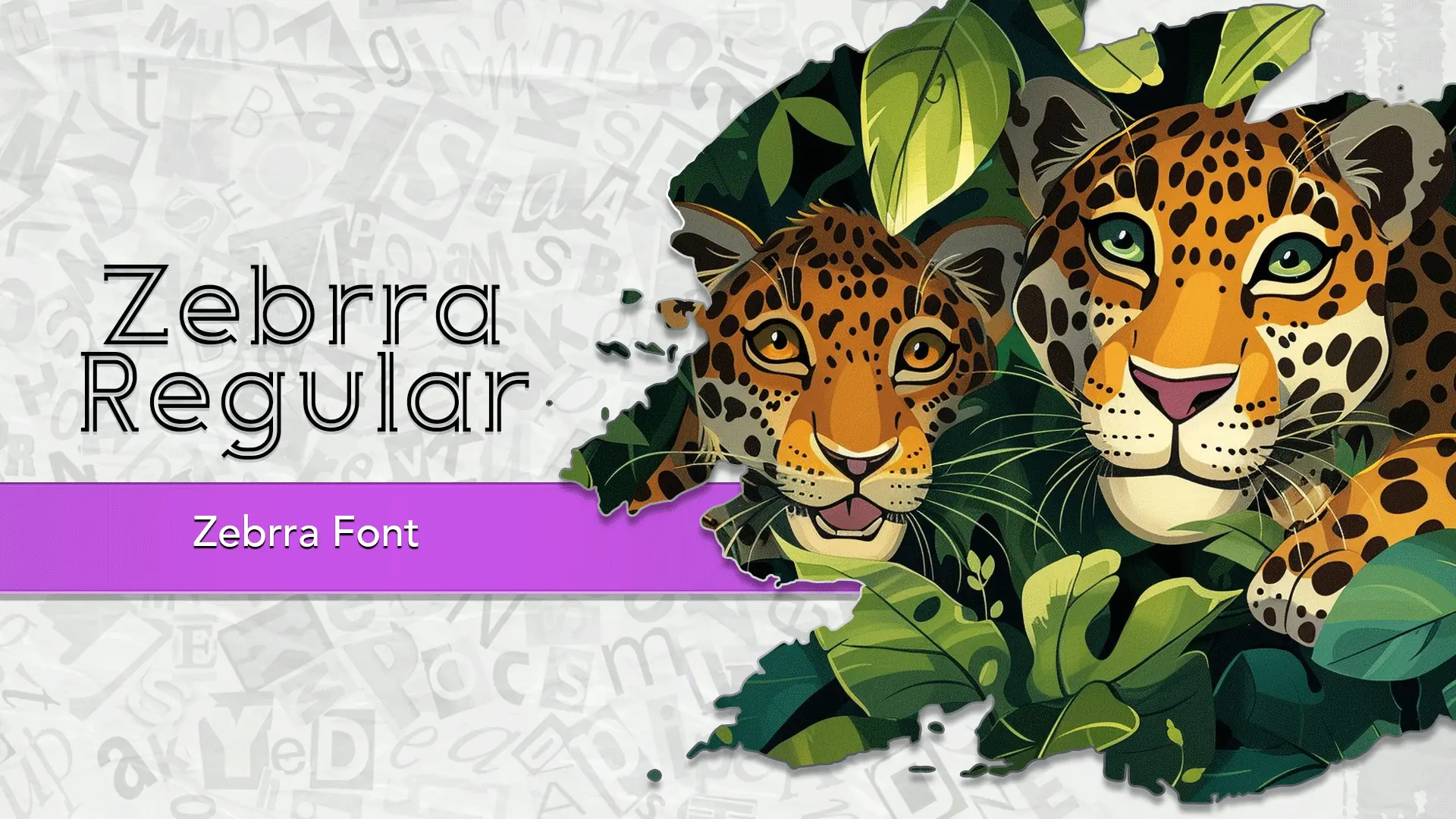
The Zebrra font family may be ideal for you if you enjoy working on an artistic design project. The lively, expressive look of this typeface, which was created by GemFonts / Typotheticals, makes it ideal for Animal or Safari-Themed Designs(Zoo or Wildlife Park Branding, Children's Party Invitations/Decorations), Apparel Design -T-shirts, hoodies, or accessories with animal prints or nature-inspired graphics, Event Promotion-For fashion shows, parties, or events with a bold, graphic, or animal-themed dress code. and other light-hearted visual projects.
Regular are the one primary font styles of the Zebrra font family. You may build dynamic, visually appealing text layouts with the distinct flair that each style offers. With crisp, readable lines and a relaxed tone.